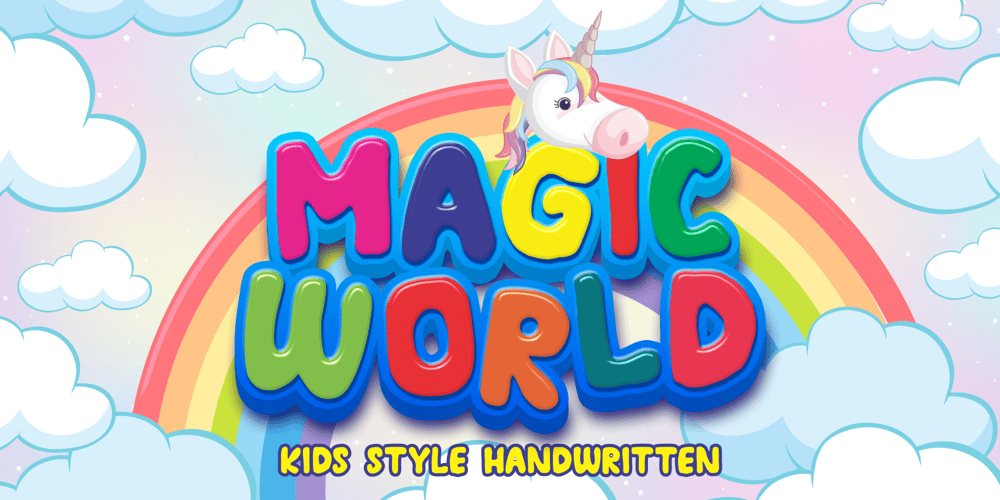
Magic World Font Family was designed by SU KASIH and published by Mozatype. Magic World contains 2 styles and family package options. MAGIC WORLD is embodied in fun and joyfulness.It is a bold and thick lettered display font.This font is perfect for children-themed designs, especially when combined with bright colors. No matter the topic, this font will be an incredible asset to your fonts’ library, as it has the potential to elevate any creation.Get creative with its childlike playfulness, and use it to brighten up any kids and school project! Use this font for any crafting project that requires a personalized look!What’s Included :- Works on PC & Mac- Easy to use ( Installations )- Compatibility Windows, Apple, Linux, Cricut, Silhouette, and Other cutting machinesThank you for purchasing this font. Please appreciate it, if you like this.ENJOY it 🙂